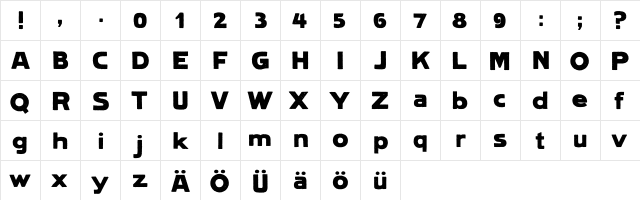
Lietz LindauHamburg Regular
| Designer | Polenimschaufenster |
Design Context for Lietz LindauHamburg Typeface
Lietz LindauHamburg is a composed and adaptable typeface that performs quietly and consistently across a wide range of design contexts.
Pro Tip: Use Lietz LindauHamburg in both headline and body roles to test its range before committing to a single application.